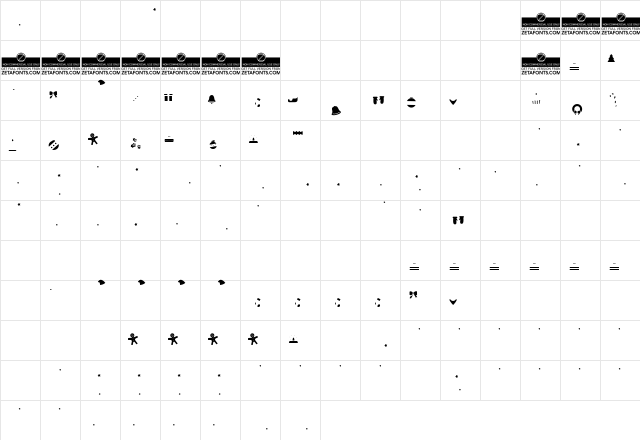
Complete Hello Christmas Fill Trial Regular glyph index. Displaying only characters natively supported by Hello Christmas Fill Trial Regular font.
Hello Christmas Fill Trial is a composed and adaptable typeface that performs quietly and consistently across a wide range of design contexts.